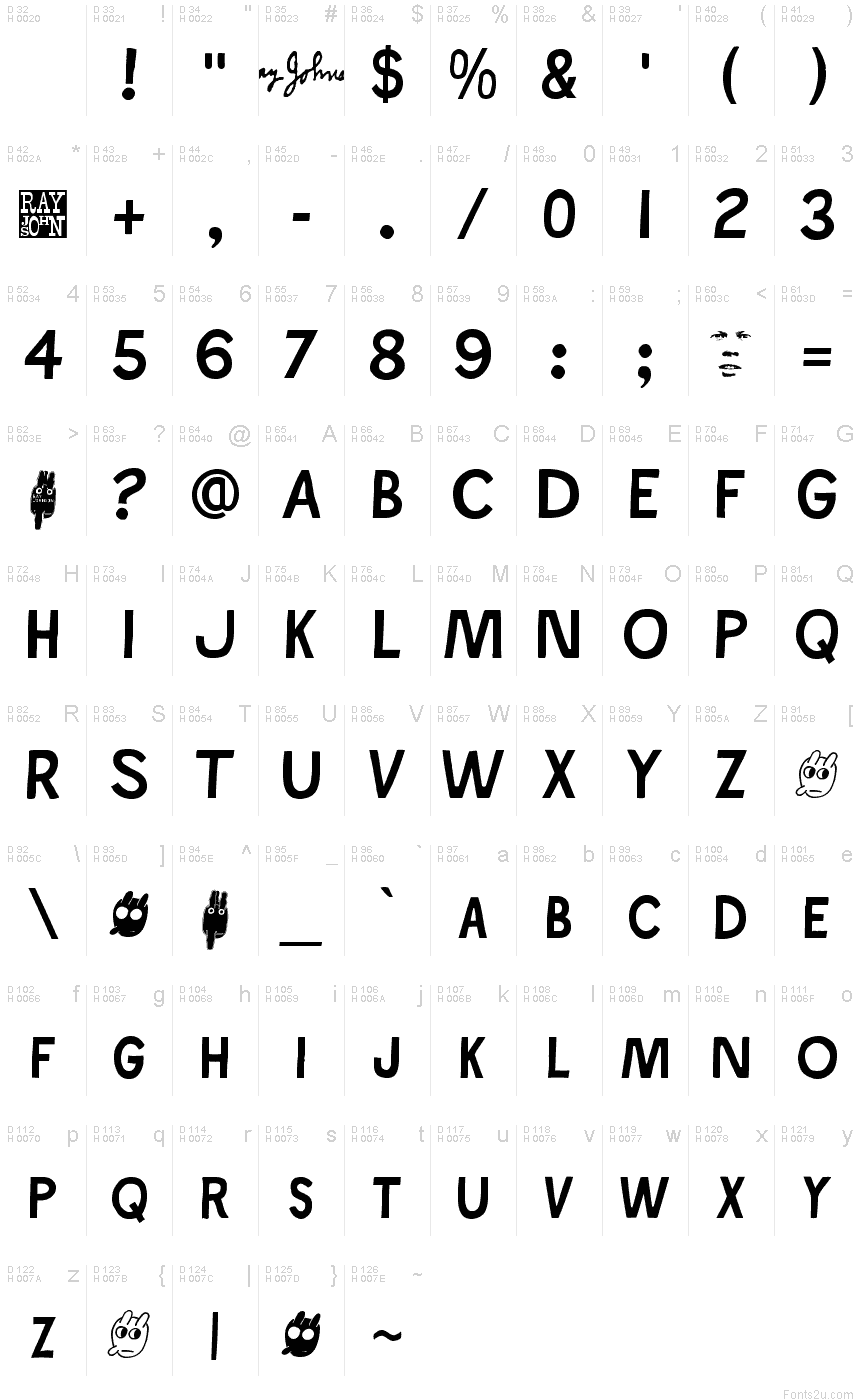
RayJohnson
Ray Johnson is a font in the style of the hand-drawn lettering used on bunny heads created by the American artist and 'Father of Mail Art', Ray Johnson (19271995).